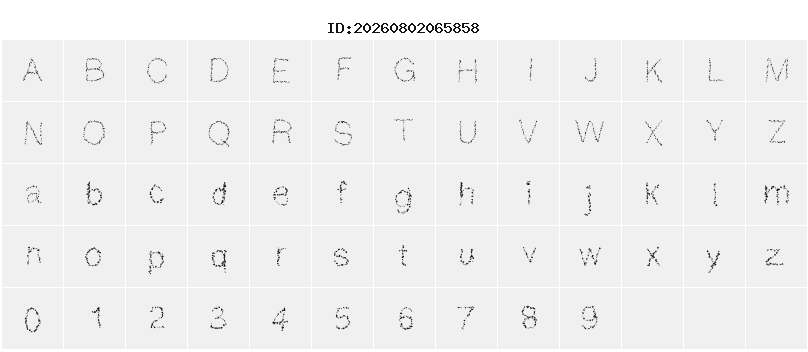
• Font Name: MGHeartart
About MGHeartart.ttf
MGHeartart.ttf is a modern, elegant sans-serif font designed for ultimate readability and visual harmony. Perfect for branding, headlines, web design, and print materials.